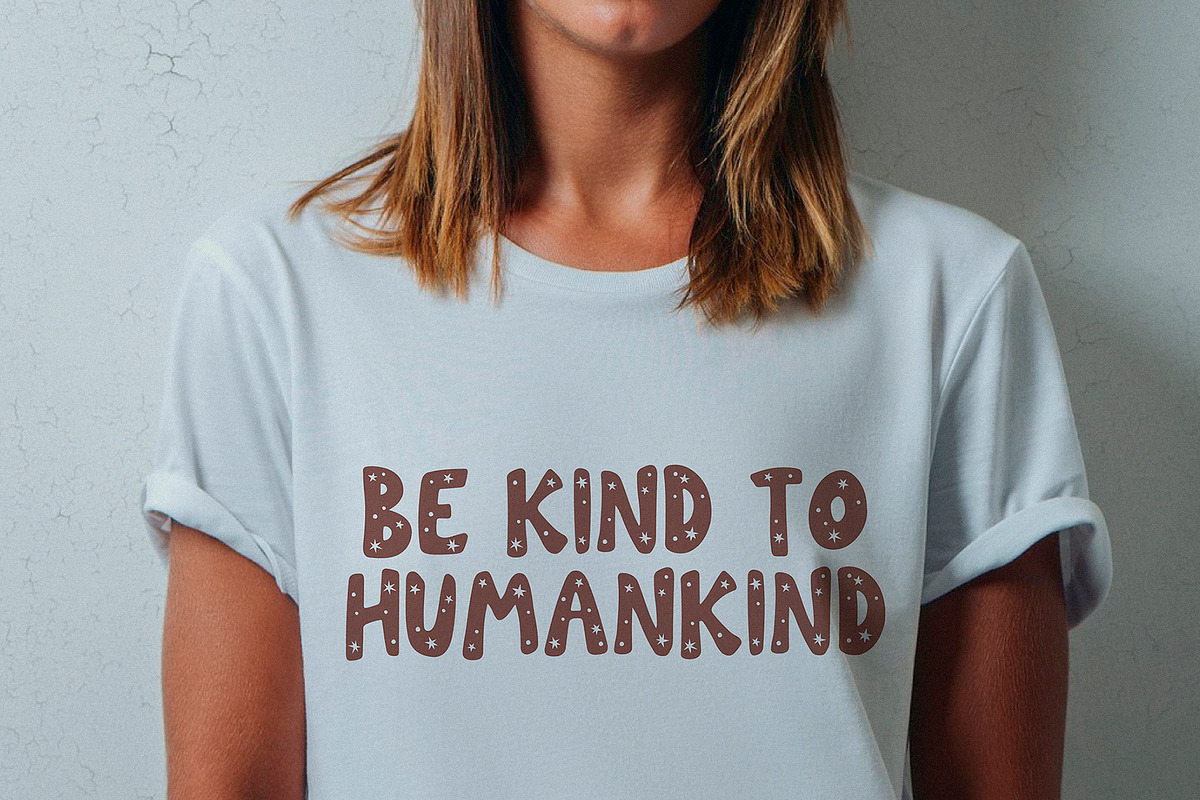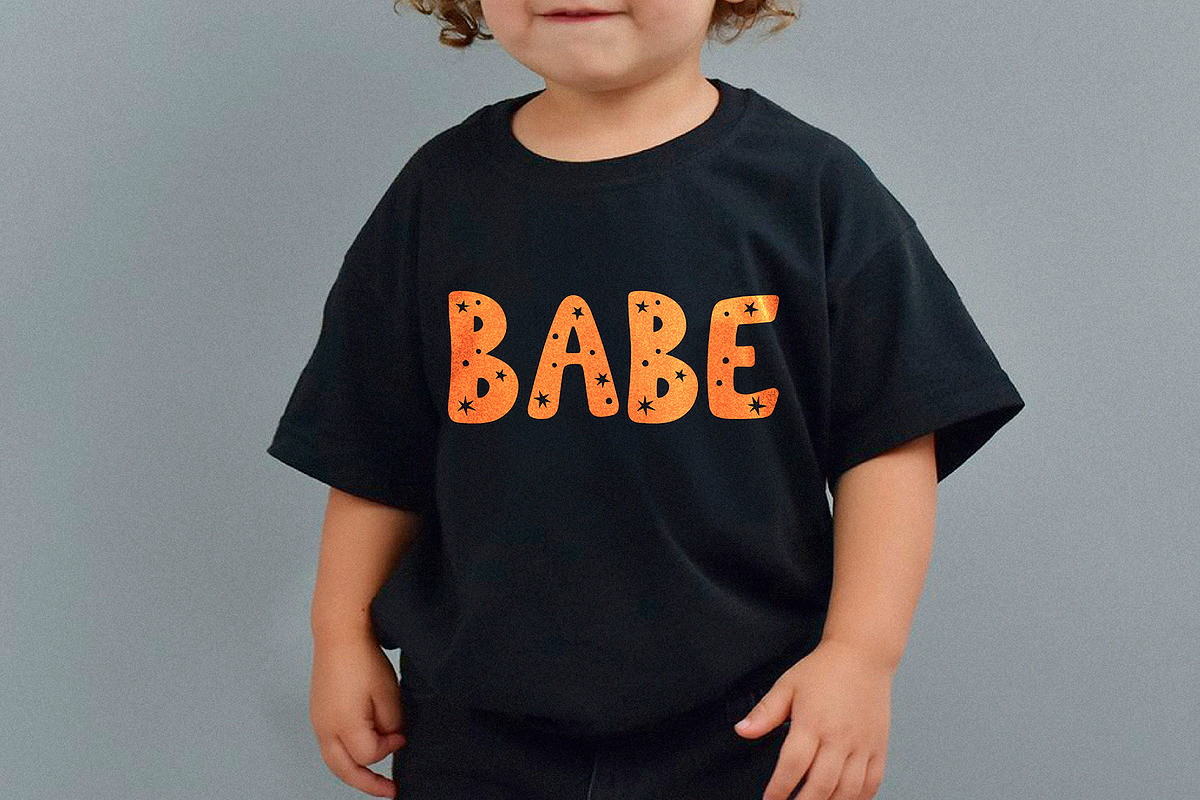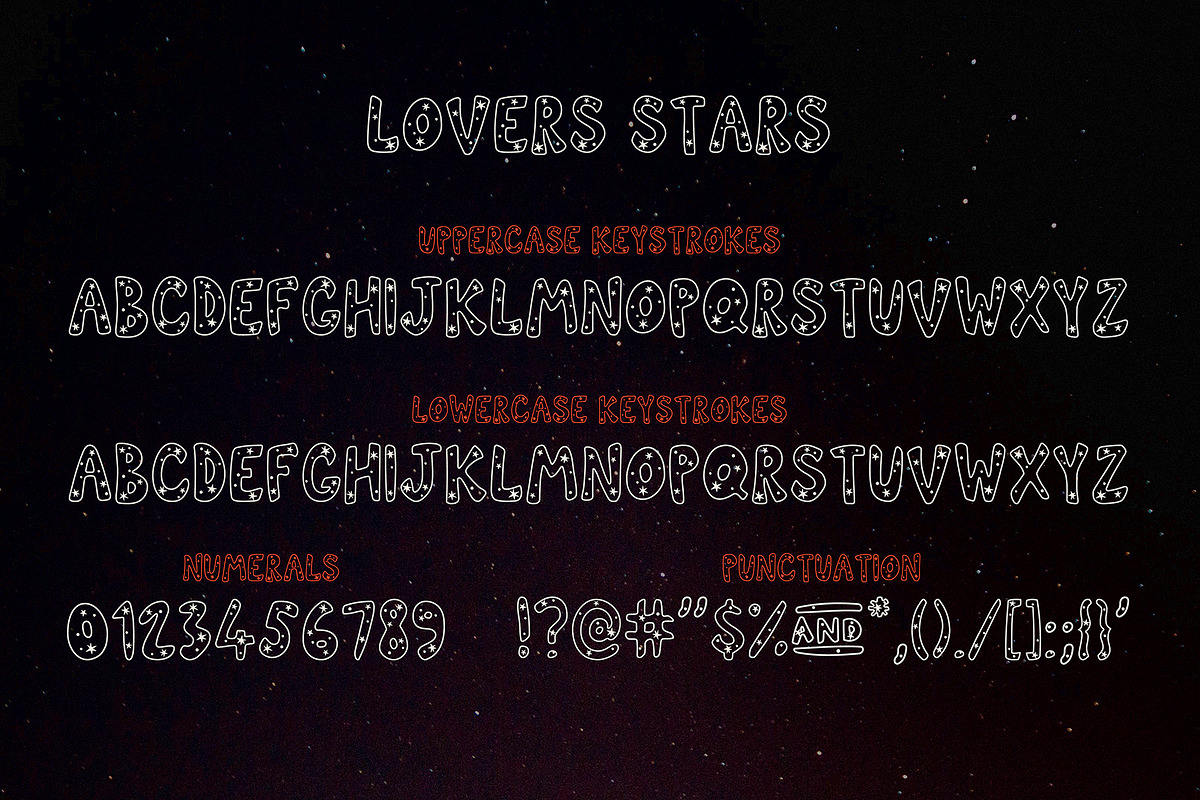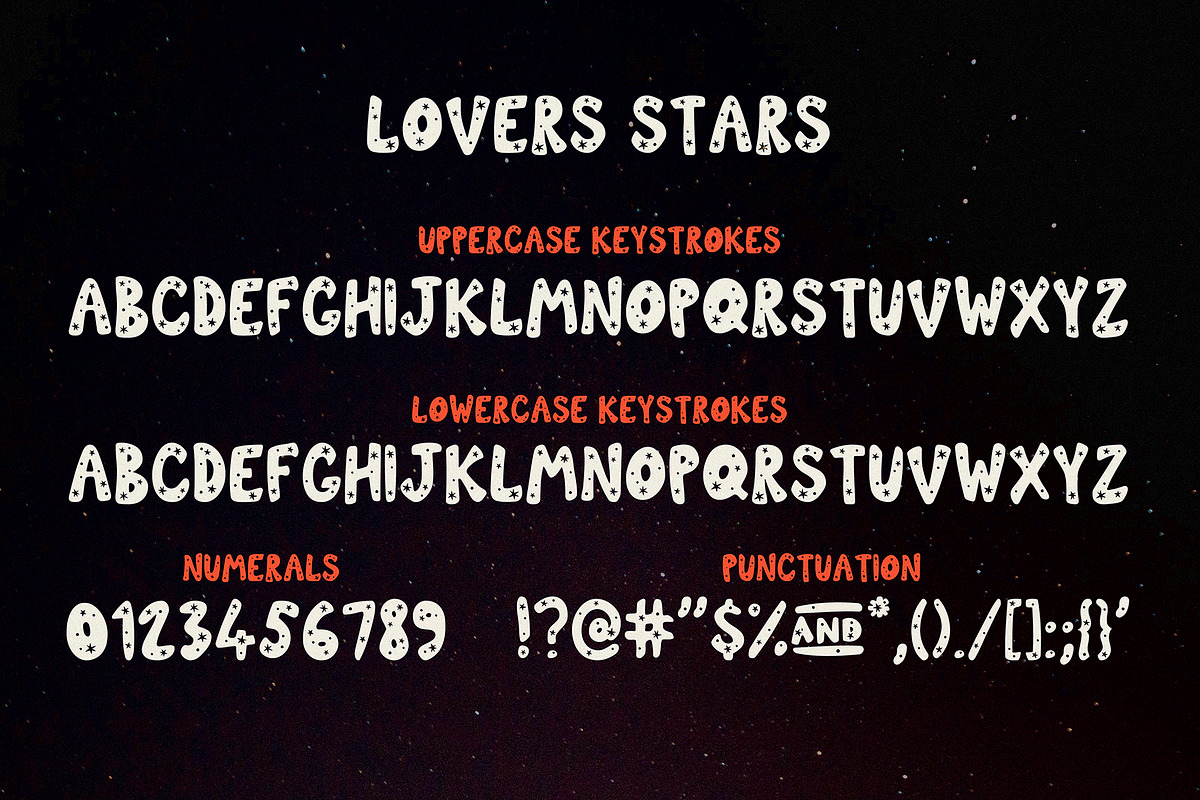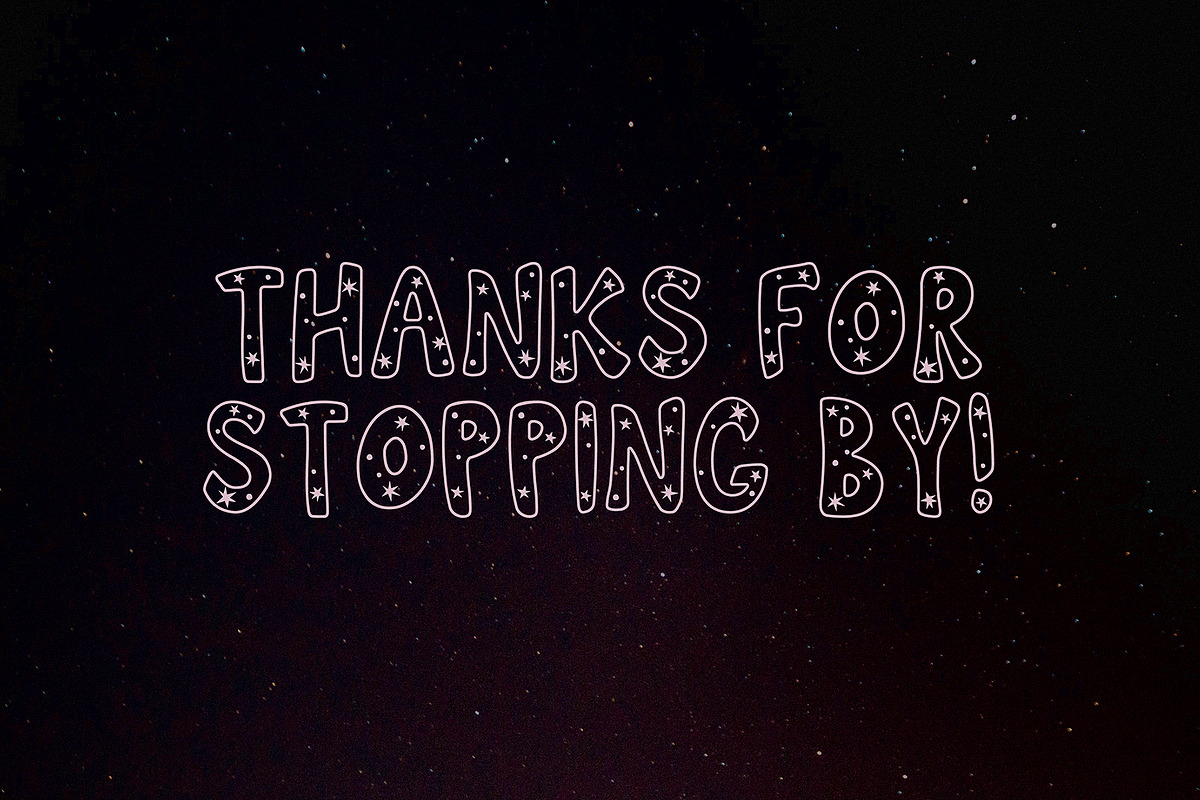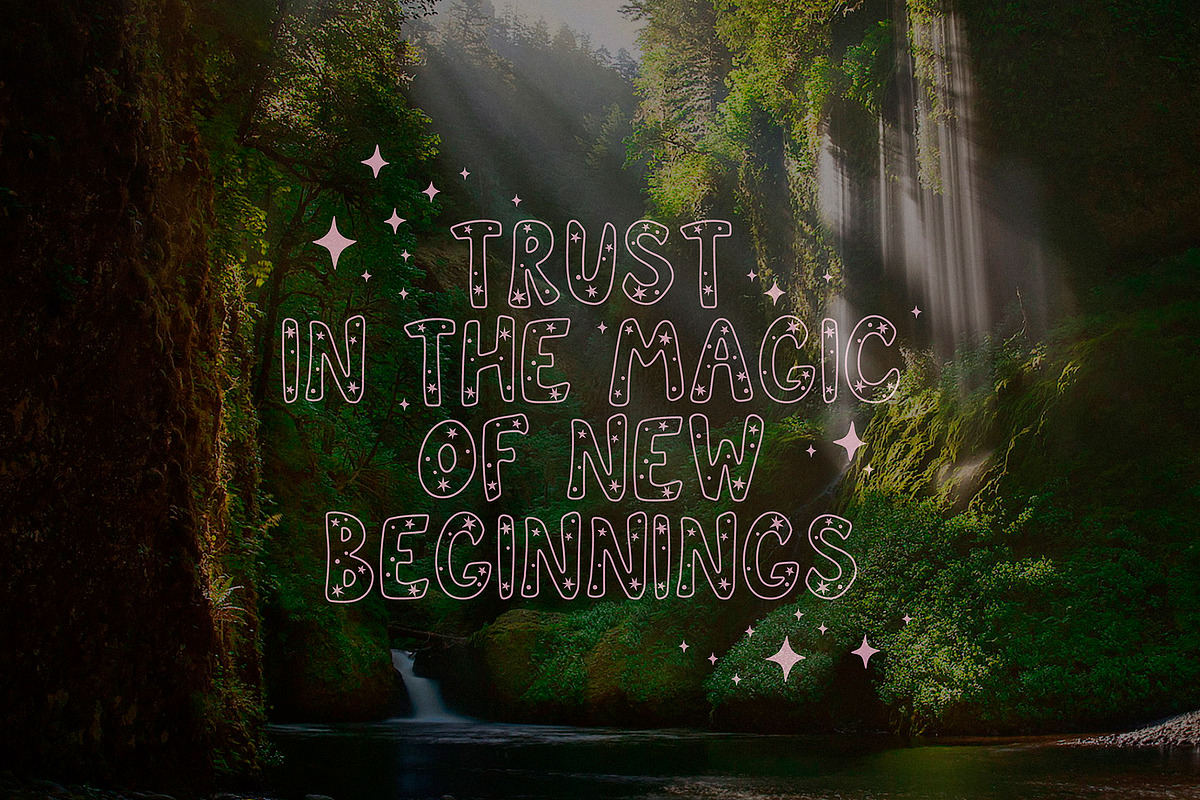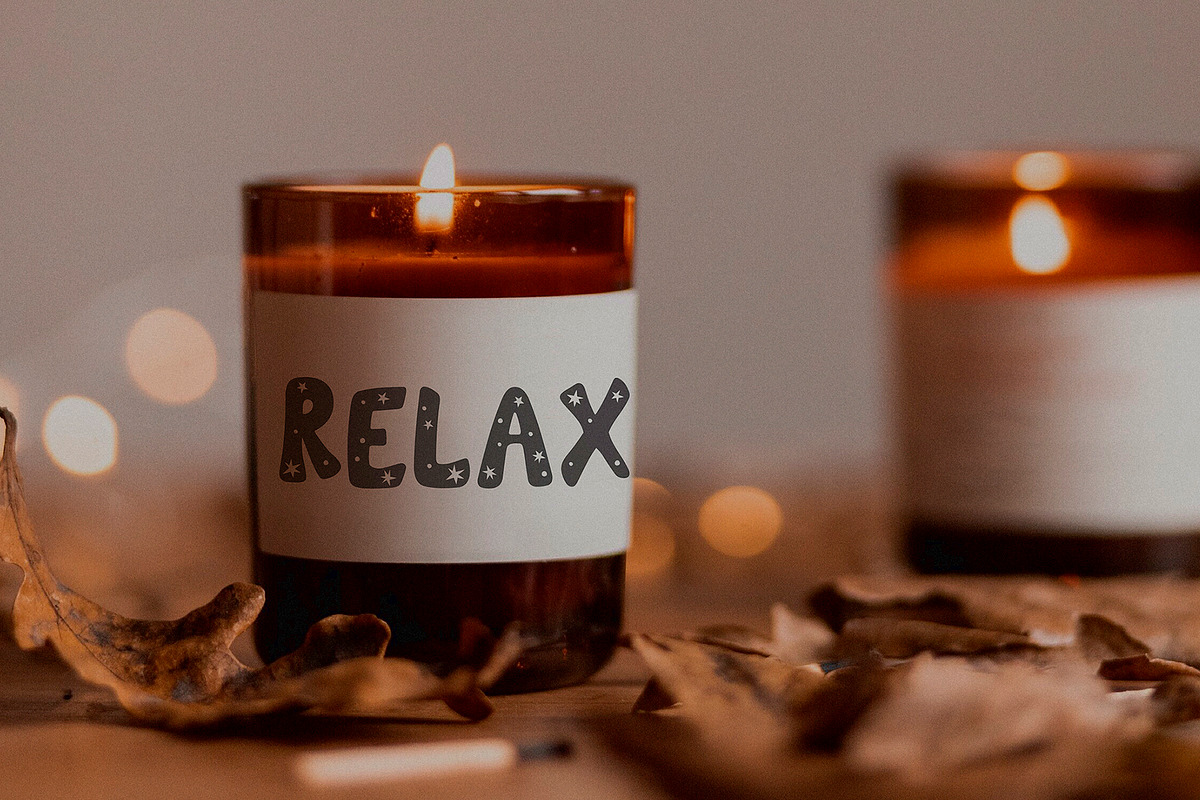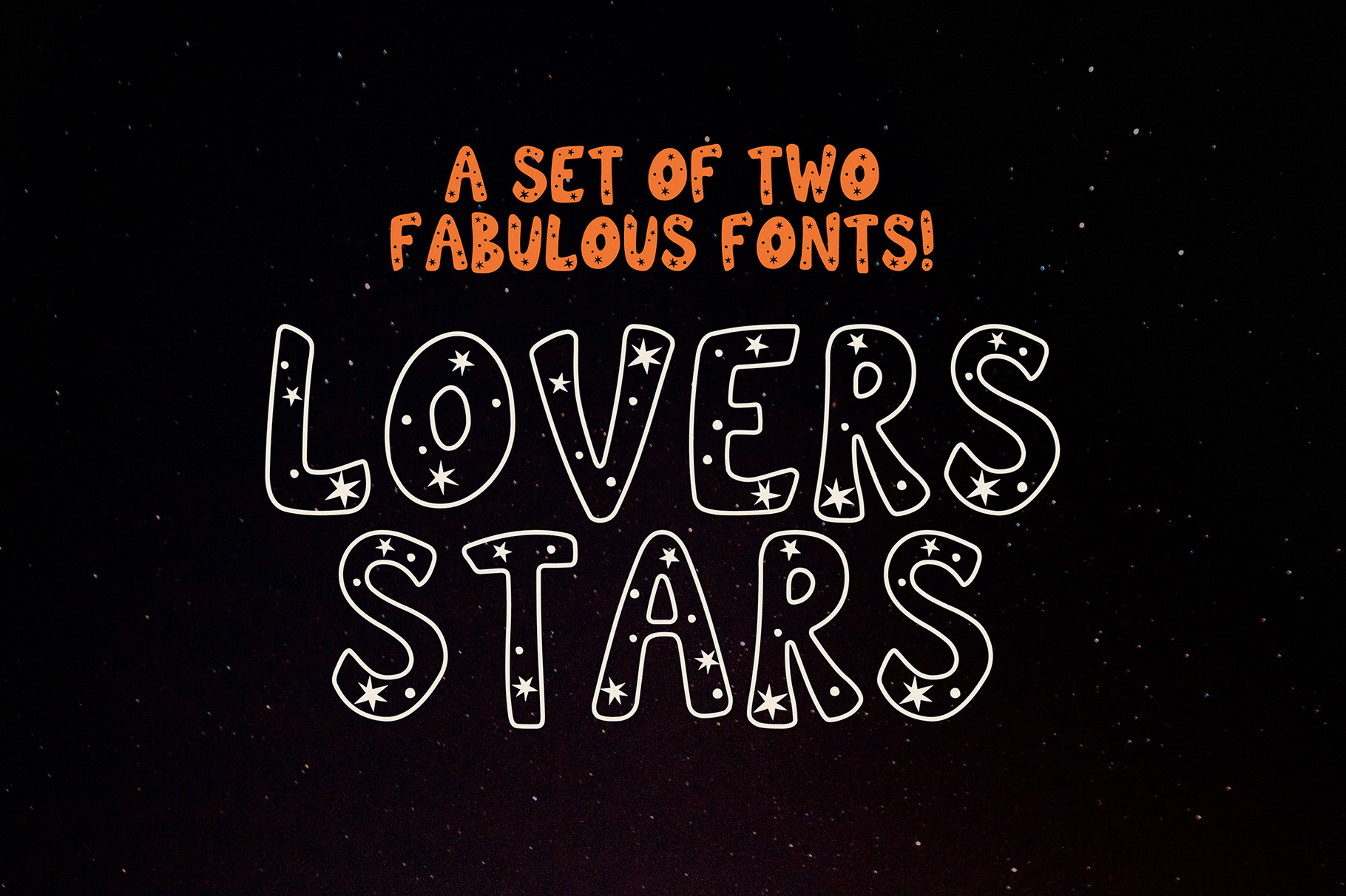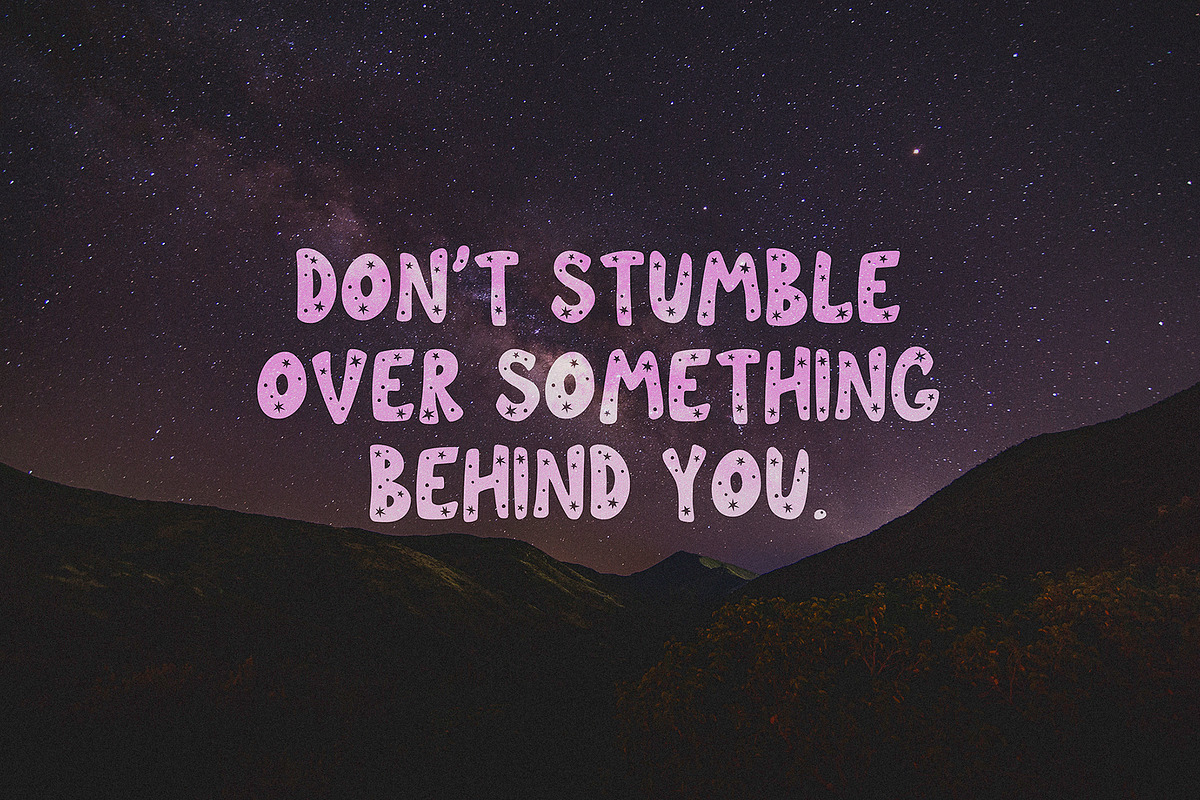
Lovers Stars Fabulous Fonts
Say Hello to Lovers Stars!! My new a set of two fabulous fonts - Lovers Stars!! Lovers Stars is a set of two amazing fonts!! This font is made from my original font - Lovers Clouds.
This font is perfect for all your designs, lettering, drawings, signage, stickers, retro designs, shirts and more!
- A-Z; a-z character set;
- numbers and punctuation marks, symbols.